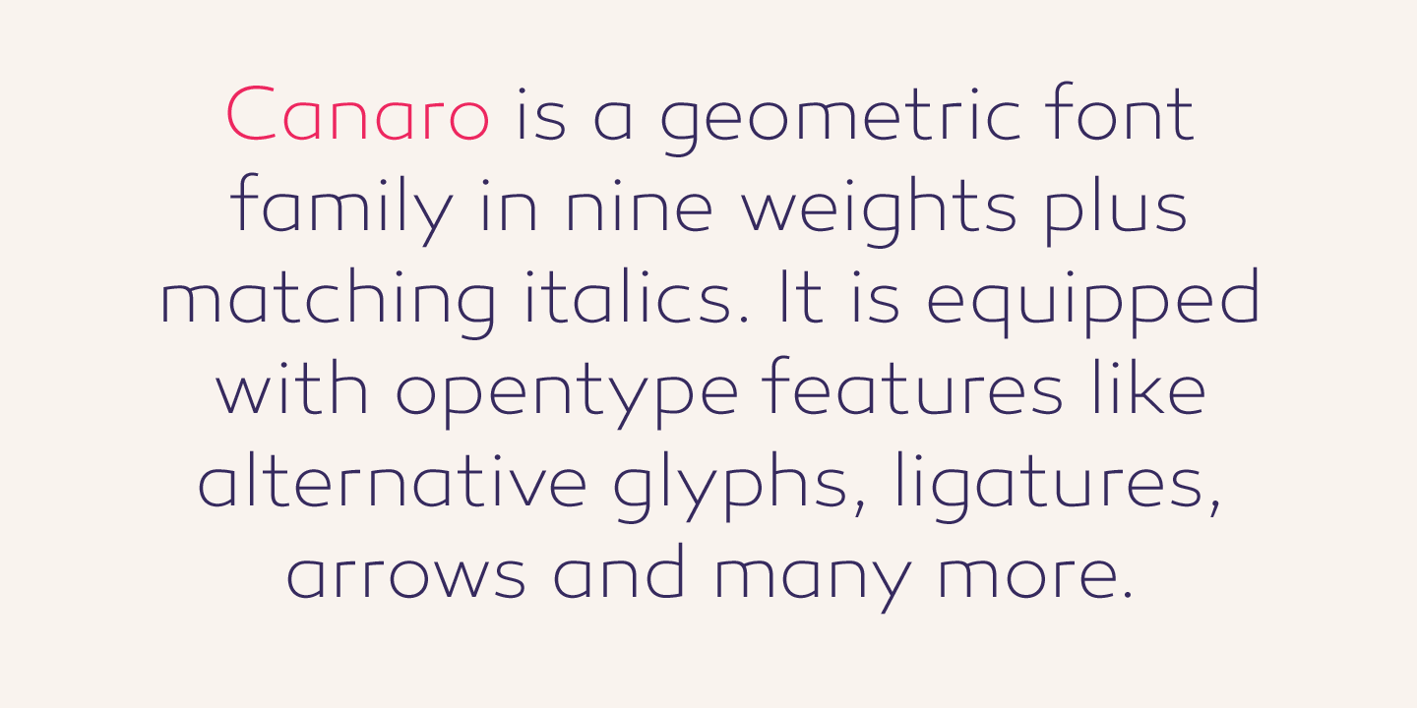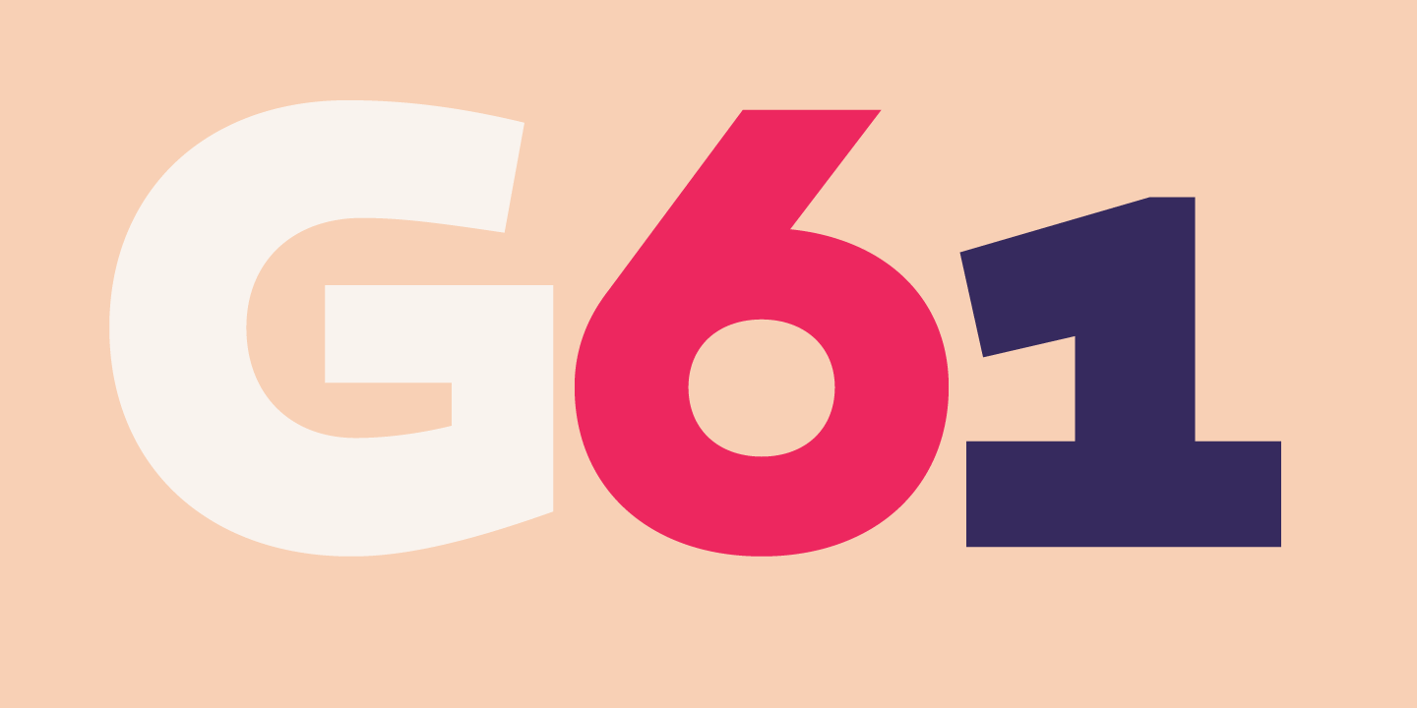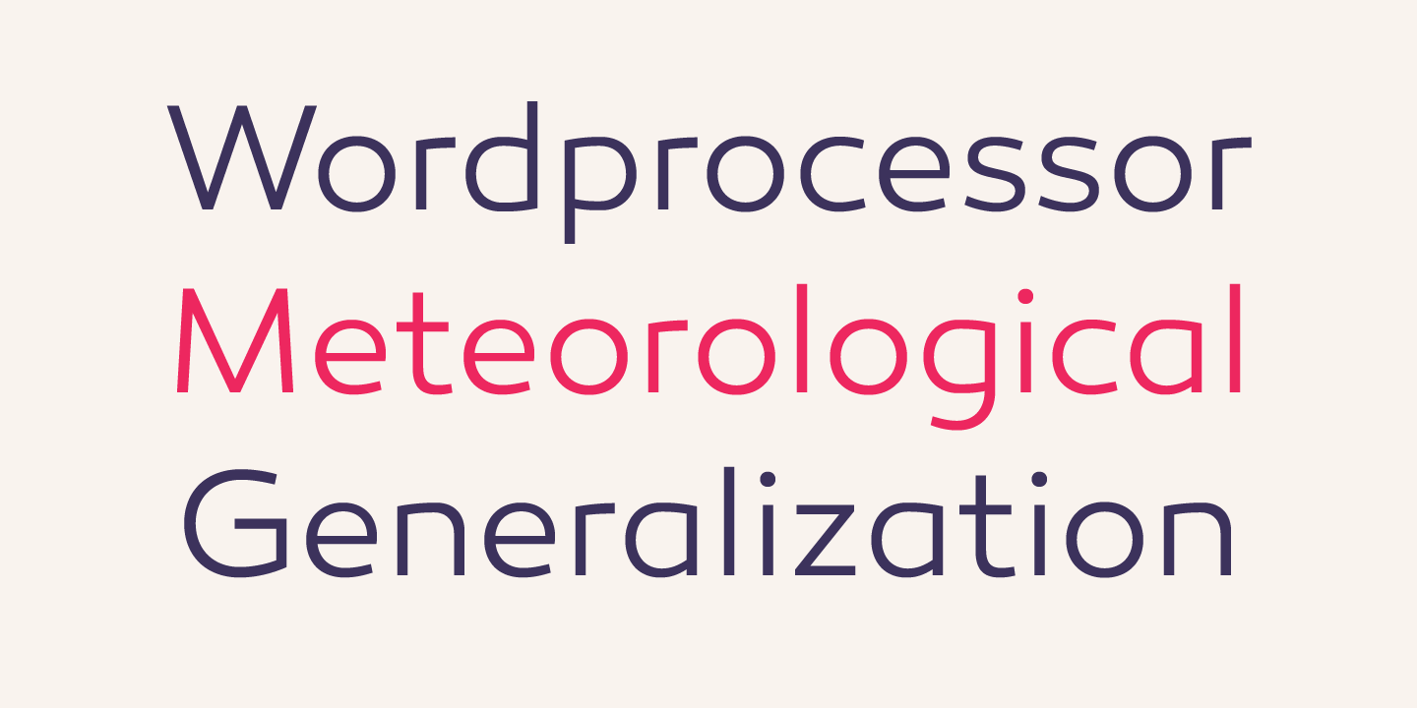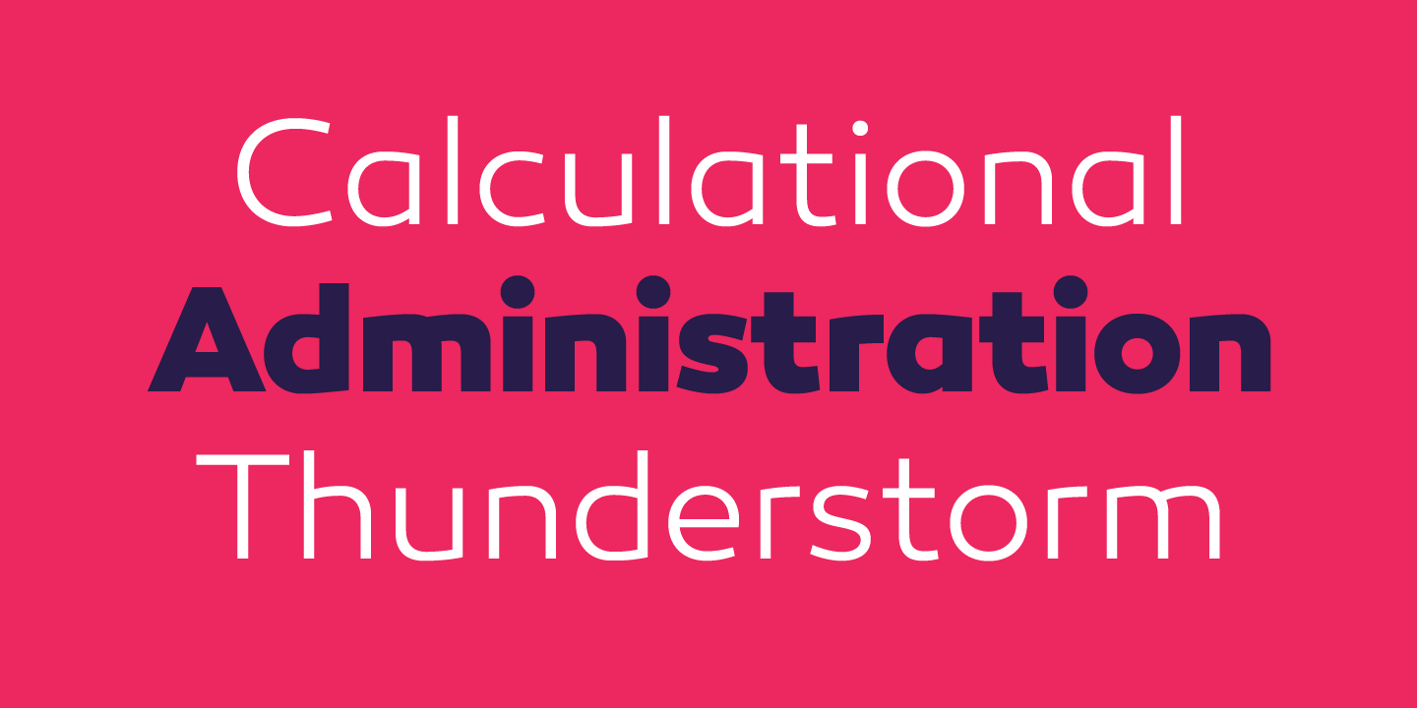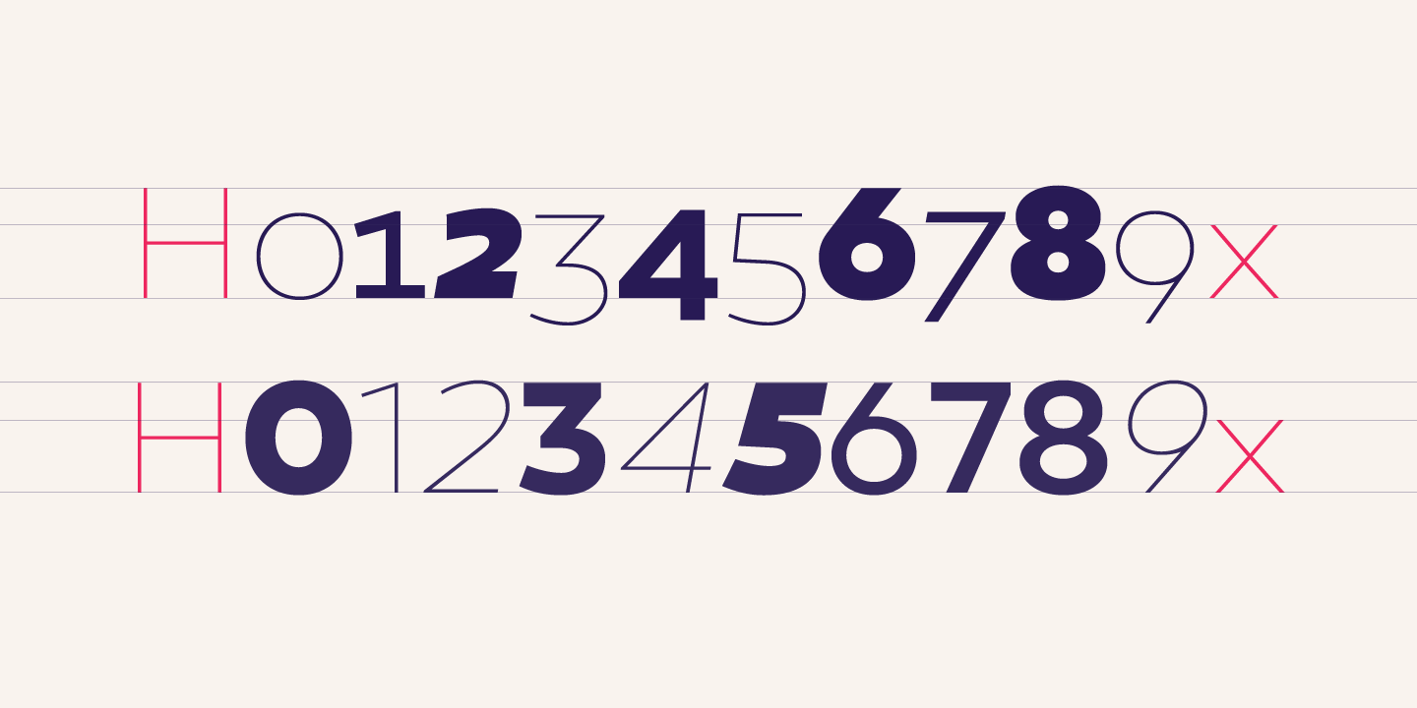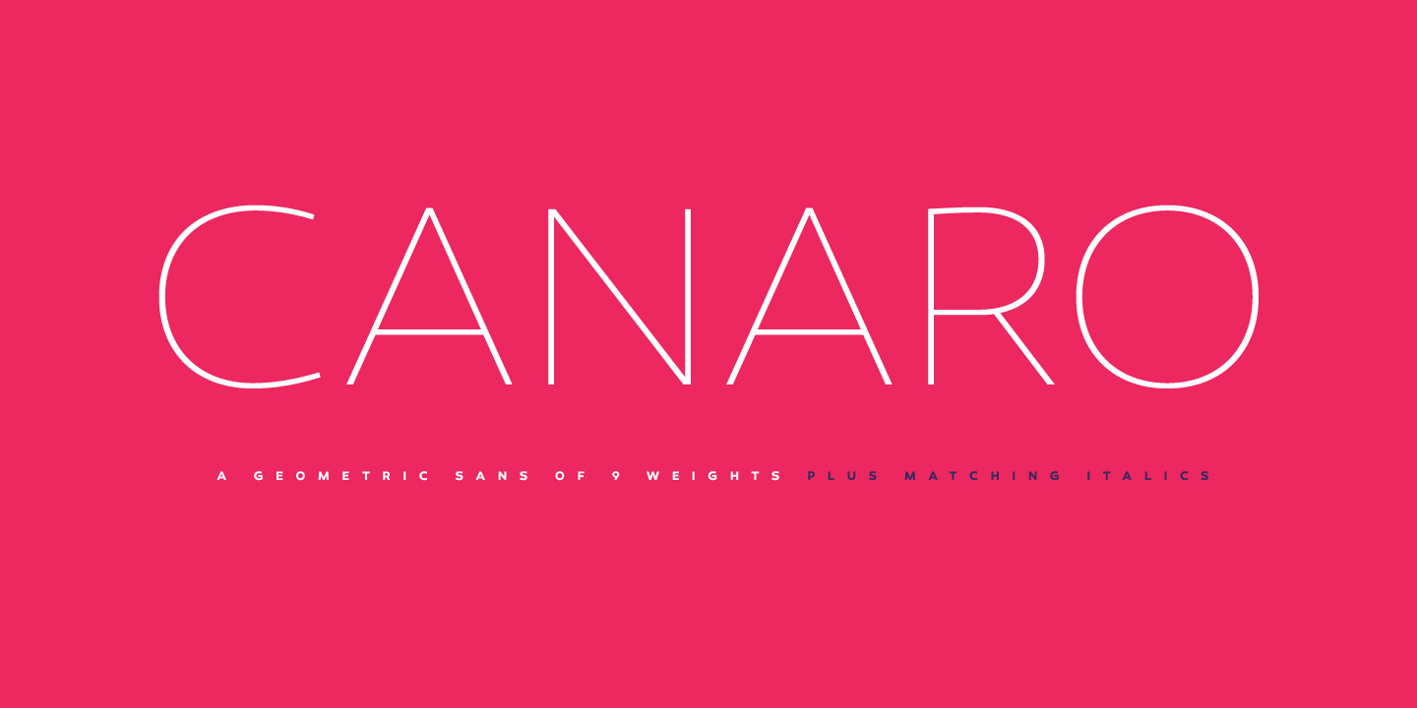
Canaro Font
Conceived as an exploration of geometrical type designs of the early twentieth century, Canaro was — in its first design stages — heavily rooted in that time period. During its development and the effort to give it a modern appearance, it turned into a contemporary font with a strong historical background, defined by legibility and functionality. In addition, the lack of spurs provide a unique but unobtrusive character and support the contemporary impression. Typographic features like alternative glyphs, ligatures, oldstyle numbers, arrows, fractions and other special characters, round up the family. Canaro is available in nine weights plus matching italics. Ranging from sharp and elegant thinner cuts to sporty and athletic heavy weights.